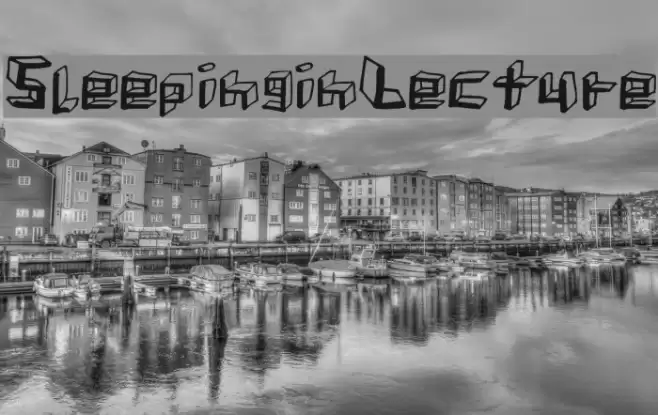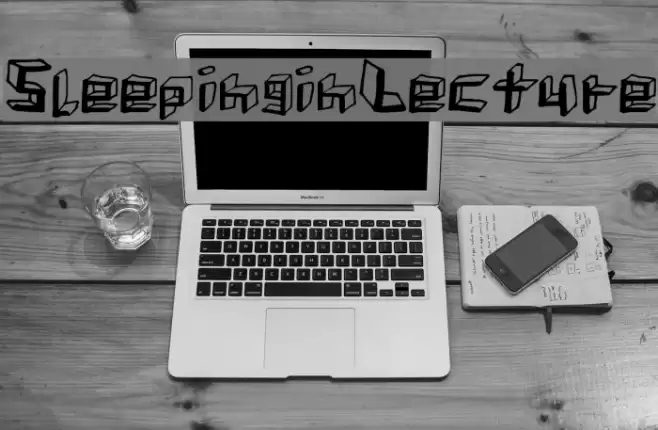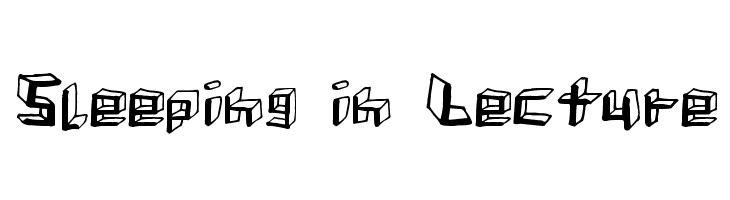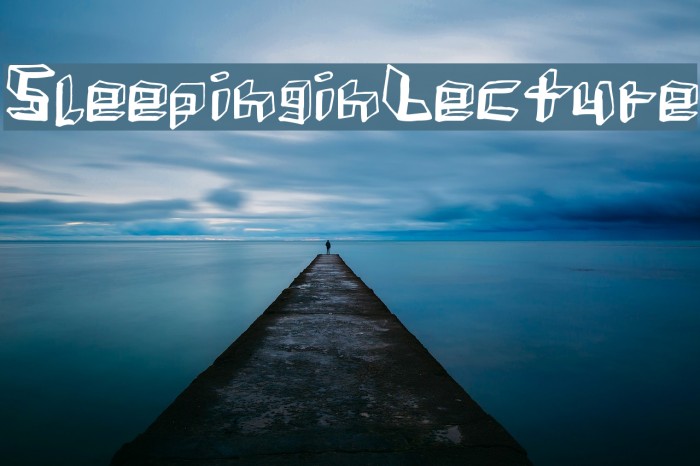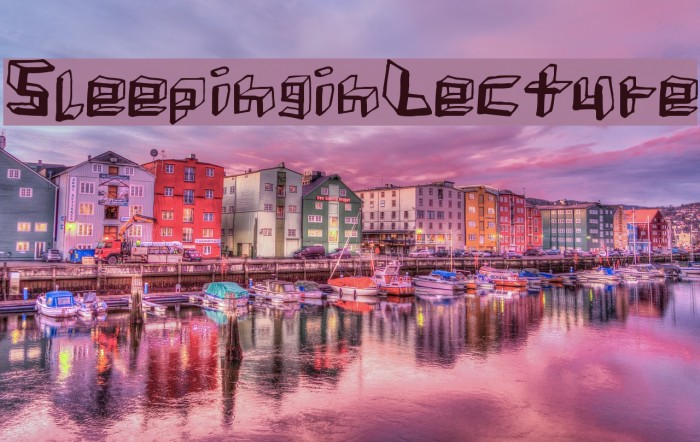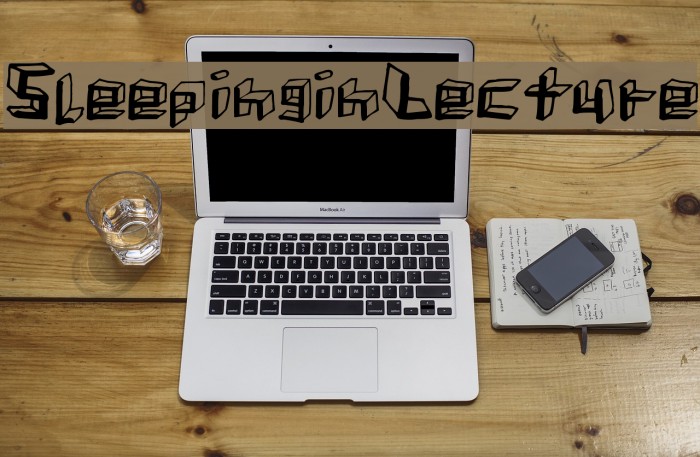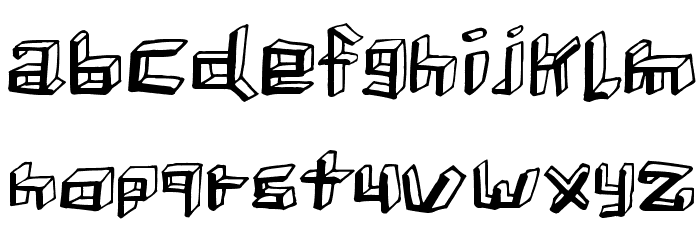
Sleeping in Lecture Font
Sleeping in Lecture Description
This font features a bold, three-dimensional style with a hand-drawn appearance. The characters are outlined with a thick black line, creating a shadow effect that gives them depth and a sense of movement. The letters are slightly irregular, adding a playful and dynamic feel. The uppercase and lowercase letters maintain a consistent style, with angular shapes and a geometric influence. The numbers and special characters follow the same design principles, ensuring a cohesive look across all elements. This font is eye-catching and unique, making it suitable for creative and artistic projects.
A bold, 3D hand-drawn font with a playful, dynamic style from Uncategorized fonts.
- Font: Sleeping in Lecture
- Proposed Projects: Ideal for posters, album covers, graffiti art, and creative branding projects.
- Overall Style: Modern, Artistic